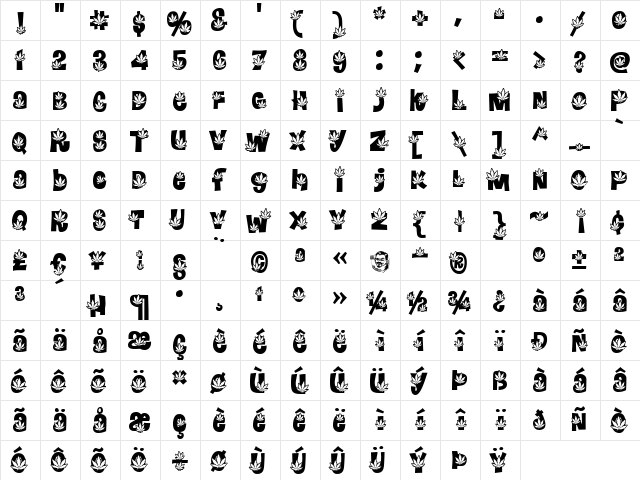
PotLand Regular
Design Context for PotLand Typeface
PotLand is a composed and adaptable typeface that performs quietly and consistently across a wide range of design contexts.